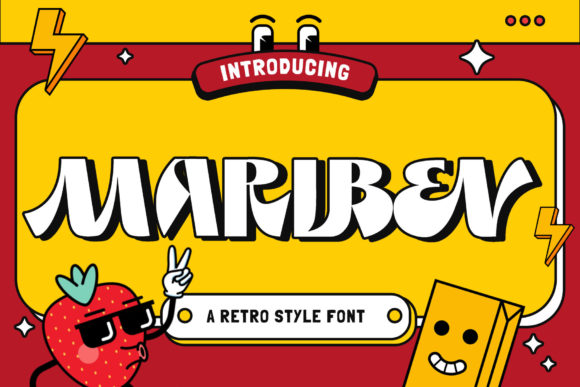
Behold, Marlben, a typographic masterpiece that evokes the electrifying essence of the 80s! Its meticulously crafted angles dance with energy, drawing inspiration from the vibrant tapestry of art, music, and culture that defined a generation.
Marlben's vintage spirit transports you to a realm where nostalgia and modernity intertwine. Its captivating glyphs possess an undeniable charm, reminiscent of beloved games, iconic films, and timeless literature that shaped our collective memories.
Whether you're seeking to ignite your brand's presence or craft designs that resonate with the past, Marlben is your font of choice. Its dynamic character lends itself effortlessly to eye-catching logos, captivating social media graphics, and unforgettable packaging that will leave a lasting impression.
Immerse yourself in the world of Marlben and unleash your creativity. Its versatility knows no bounds, empowering you to craft designs that evoke a sense of nostalgia, playfulness, and timeless elegance.
Join the ranks of those who have been captivated by Marlben's vintage allure. Let its bold strokes and captivating curves ignite your imagination and transport your designs to a realm of distinction.